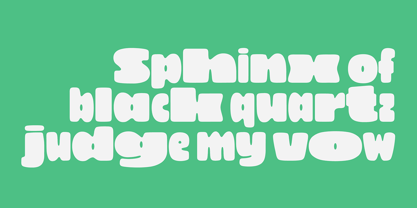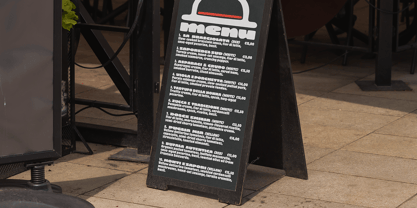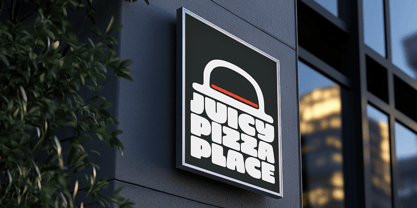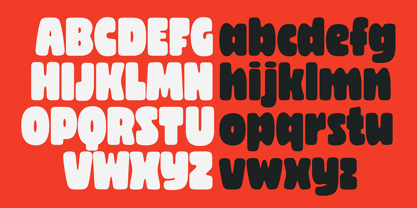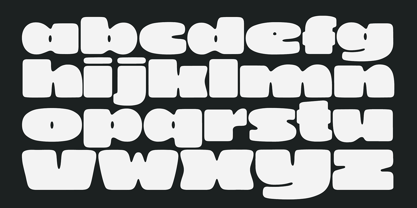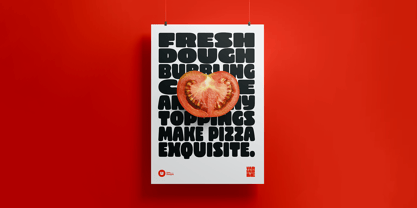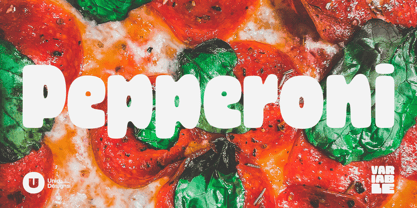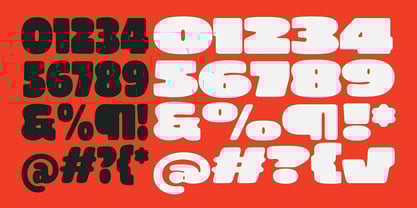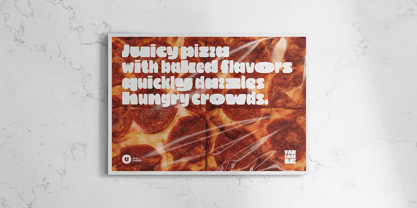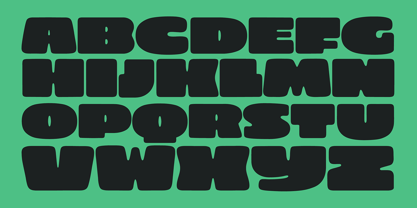
Pepperoni Variable Sans
by Unio Creative Solutions
The Pepperoni Variable Sans Font Family was designed by Nicola Manzari, Bruno Pierini and published by Unio Creative Solutions. Pepperoni Variable Sans contains 9 styles and family package options.
Meet Pepperoni, a textured sans serif with a bold personality, available in four distinct styles plus a variable font for ultimate flexibility. Designed with a handcrafted, vintage aesthetic, Pepperoni Variable brings a warm, food-inspired vibe—perfect for packaging, branding, signage, apparel, and editorial design.
With its tight spacing and bold letterforms, Pepperoni commands attention while maintaining an organic, lived-in feel. The subtly uneven strokes give it the charm of a classic New York pizzeria menu, blending toughness with softness for a distinctive, nostalgic appeal.
Whether used for logos, short headlines, or display text, this versatile typeface adapts effortlessly to different projects. The variable font option allows designers to fine-tune weight and width, ensuring the perfect balance of impact and texture.
Pepperoni supports 200+ Latin-based languages, making it a global design essential. Add character to your work with this dynamic and expressive sans!